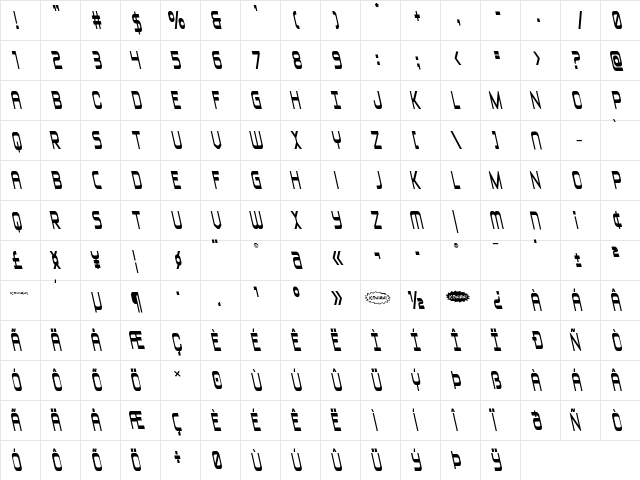
Blizzard Shaft Semi-Leftalic Regular
Design Context for Blizzard Shaft Semi-Leftalic Typeface
Blizzard Shaft Semi-Leftalic offers clean, dependable letterforms without strong stylistic allegiance, making it a practical choice for designers who need flexibility. The dynamic lean of this cut emphasises speed and emphasis in any layout.
Pro Tip: Try Blizzard Shaft Semi-Leftalic for annotation and caption copy alongside an upright companion — the contrast in angle creates a dynamic but ordered typographic system.